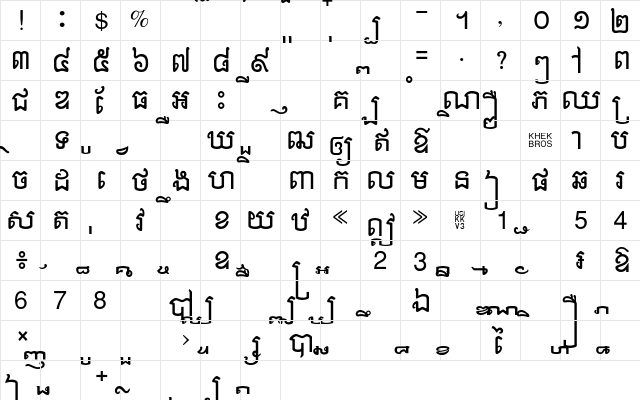
Anlongvill Regular
Design Context for Anlongvill Typeface
Anlongvill is a composed and adaptable typeface that performs quietly and consistently across a wide range of design contexts.